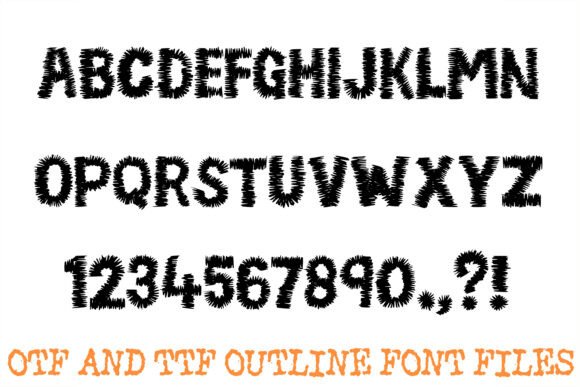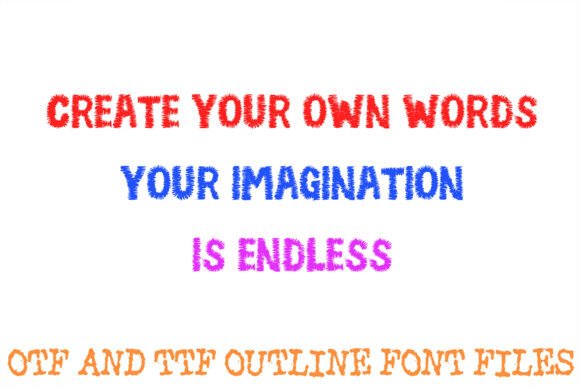
Introduction to Fuzzy Scribble Font
The Fuzzy Scribble Font is a highly tactile, heavily textured display typeface that captures the raw, organic energy of dense cross-hatching and rapid thread-work.
Built from countless overlapping hand-drawn strokes, each letterform delivers a rich, bristly texture with soft, slightly frayed edges This unique style makes it a premier choice for designers developing edgy streetwear graphics, cozy winter branding, hand-crafted zine layouts, and striking alternative music posters.
Key Features of Fuzzy Scribble Font